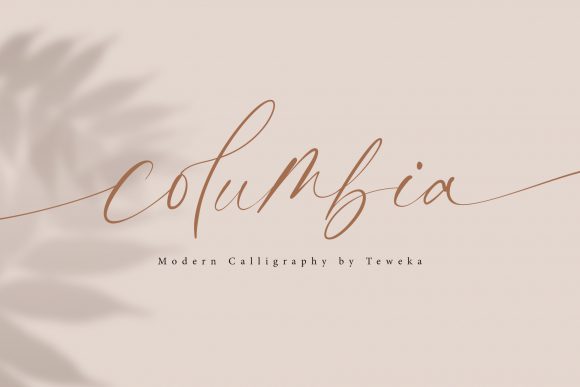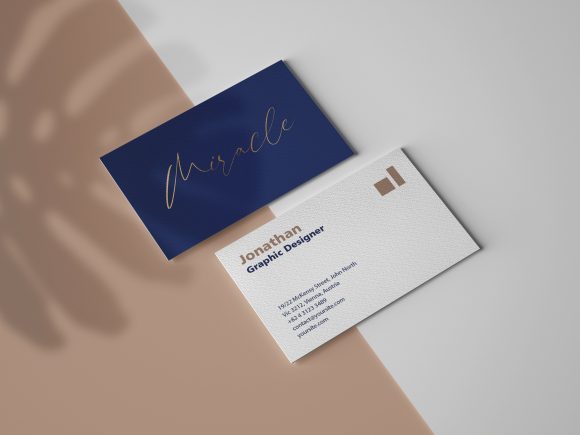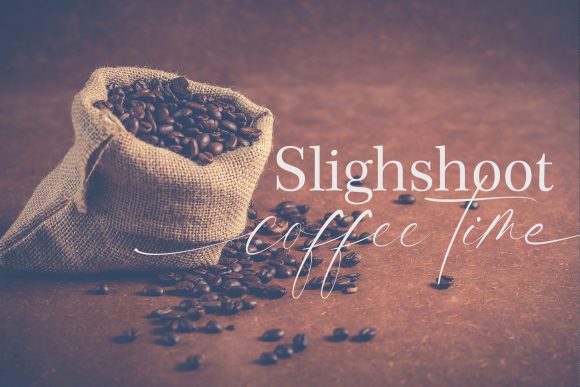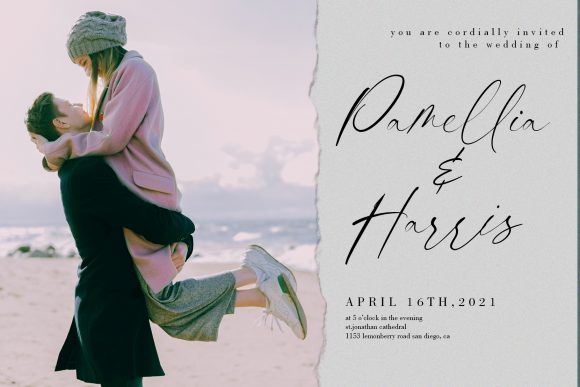
Columbia Font
About the Columbia Font
Step up your design game with Columbia Font, a font that exudes confidence and style. Columbia is a magical handwritten font carefully created with a touch of elegance. Whether you’re looking for fonts for Instagram or calligraphy scripts for DIY projects, this font will turn any creative idea into a true piece of art!
Columbia’s elegant, handwritten style is best suited for headlines, short text blocks on invitations or branding materials, and social media graphics where its unique character will shine. It works exceptionally well for projects requiring a touch of personal warmth and sophistication, such as wedding invitations or boutique branding. Avoid using Columbia for body text or large blocks of content; its delicate nature makes extended reading difficult.
For effective pairings, consider a clean sans-serif like Montserrat or Lato for body text to provide a strong contrast and enhance readability. Alternatively, a geometric sans-serif such as Futura can create a modern, sophisticated pairing. If a more playful feel is desired, a simple, friendly serif like Playfair Display could also complement Columbia’s charm.
Columbia possesses a sophisticated and slightly whimsical personality, lending itself to brands and projects that value handcrafted quality and a touch of unique charm. Its elegant strokes and slightly informal character make it unsuitable for corporate identities requiring a strictly formal or serious tone.
Columbia Font Usage Examples
Columbia Font Example